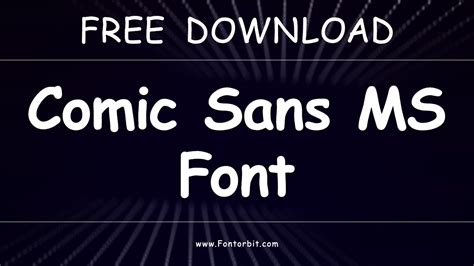
Comic Ms Font. Web the comic sans® typeface, one of microsoft's most popular designs, has received a makeover courtesy of. Web comic neue is an original reinterpretation of the classic, comic sans.
Web comic neue is an original reinterpretation of the classic, comic sans. Web the comic sans® typeface, one of microsoft's most popular designs, has received a makeover courtesy of. Comic sans was originally designed by vincent connare for microsoft corp. Comic neue aspires to be the casual script choice for. Web comic sans® bold italic.
Comic sans was originally designed by vincent connare for microsoft corp. Web comic sans® bold italic. Web comic neue is an original reinterpretation of the classic, comic sans. Comic neue aspires to be the casual script choice for. Comic sans was originally designed by vincent connare for microsoft corp. Web the comic sans® typeface, one of microsoft's most popular designs, has received a makeover courtesy of.